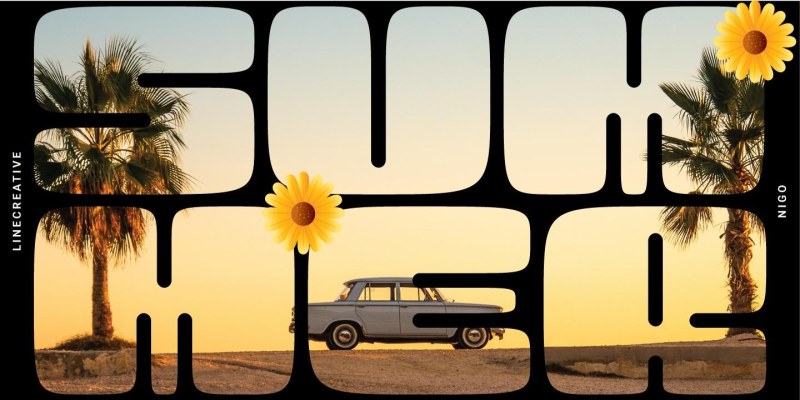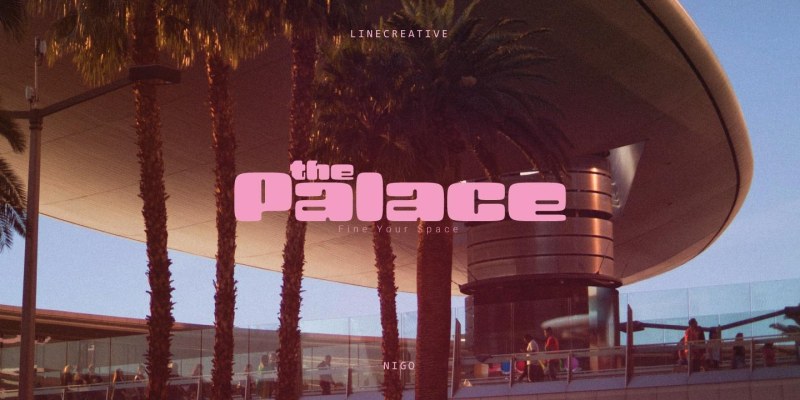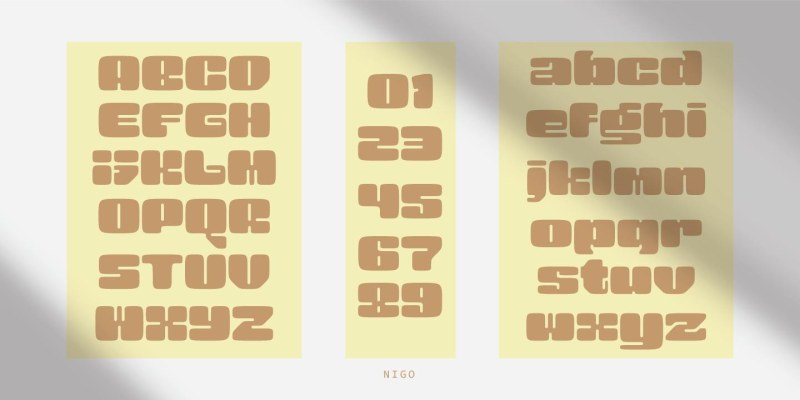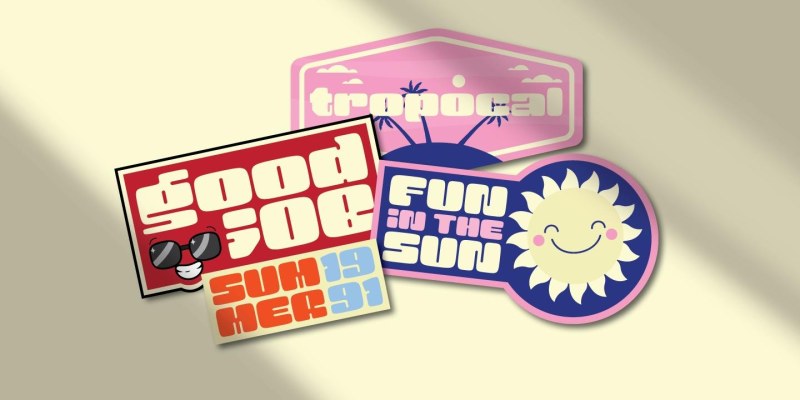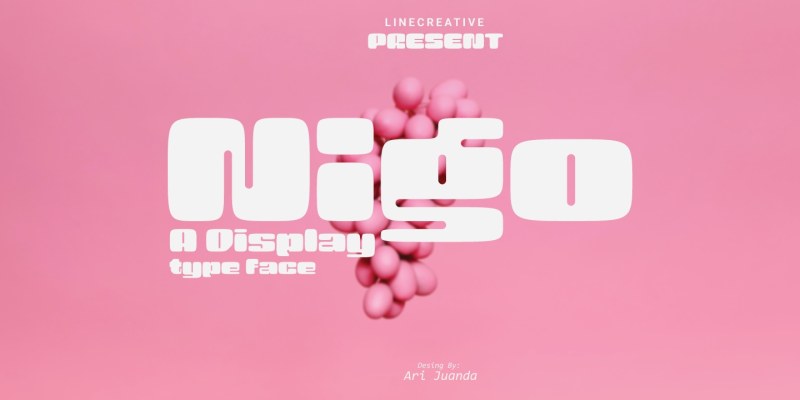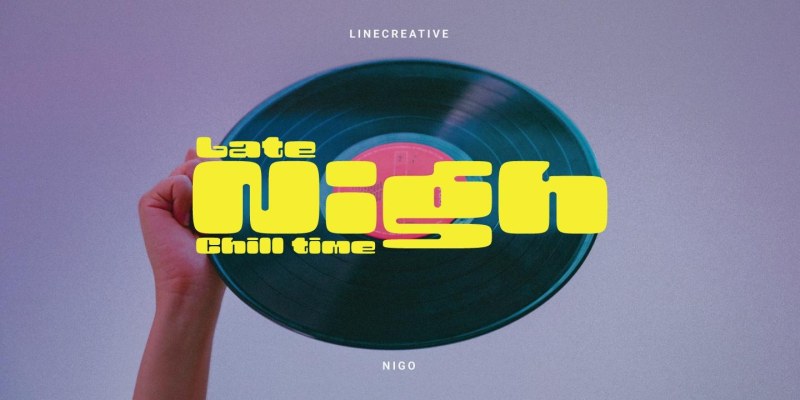
Nigo Font
Nigo is a stylish font It has both modern and retro look – clear, modern and fun, Perfect for make any project like header, quote, layout magazine and other. Even better if you use it on 60s and 70s design project.
Where Nigo Font works best
Startups & tech
Nigo Font fits product landing pages, app stores and pitch decks with a contemporary feel.
Architecture & real estate
Modern geometric forms suit property brochures, signage and portfolio sites.
Corporate identity
A modern typeface keeps annual reports and presentations clean and current.
What is Nigo Font good for?